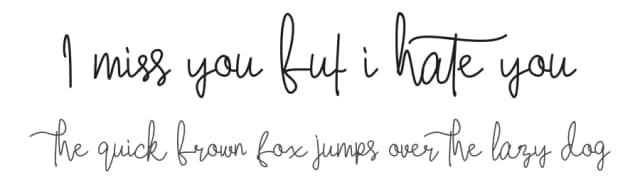
About White Star Font
White Star for your incredible project designs. A lovely and chic typeface complements the sophisticated and natural handwritten style. White Star is ideally suited for logos, branding, weddings, and quotations.
Features include:
Ligatures
Multilingual Supports
PUA Encoded
Numerals and Punctuations
| Designer | Donis Miftahudin |
White Star Font is a script font that shines as a display or heading face. Pair it with a clean sans-serif or serif font for body text — the contrast creates a clear hierarchy while the two styles stay balanced and easy to read.
White Star Font
by Din Studio